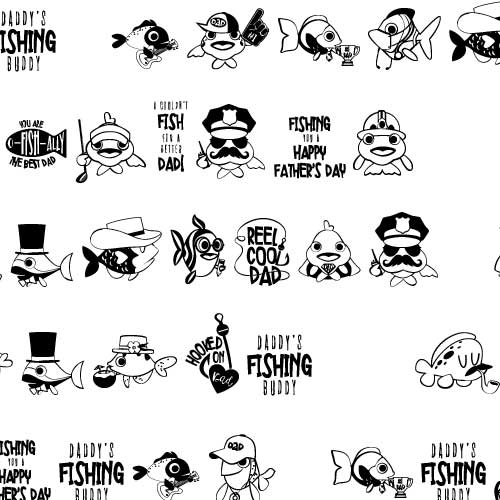
DB Ofishally - Dad - DB
This fun doodlebat font features 26 dad fish imagesand puns that are perfect for Dad, Father's Day, the average fisherman, decor, parties, planner stickers, scrap book pages, gifts and more!